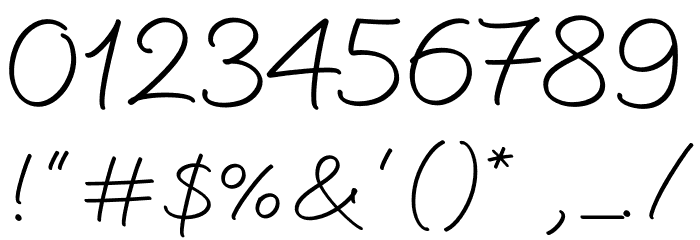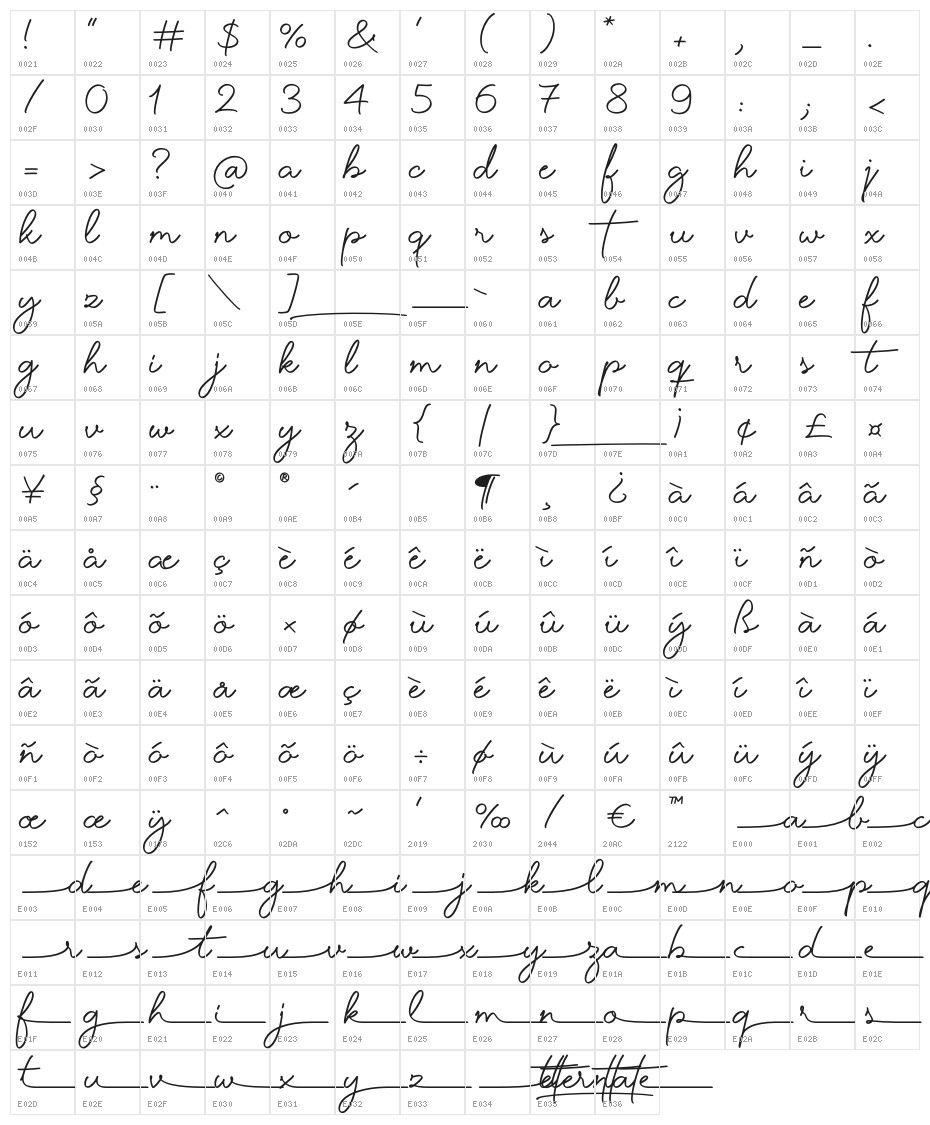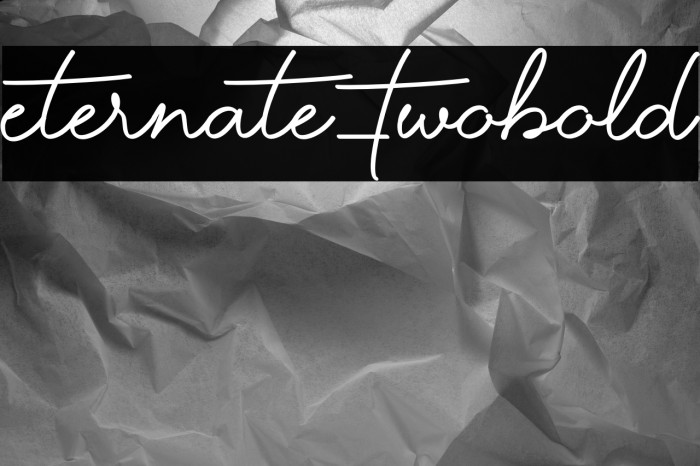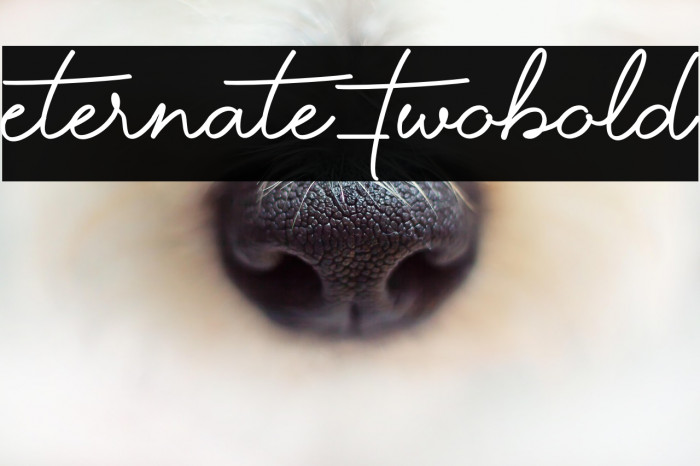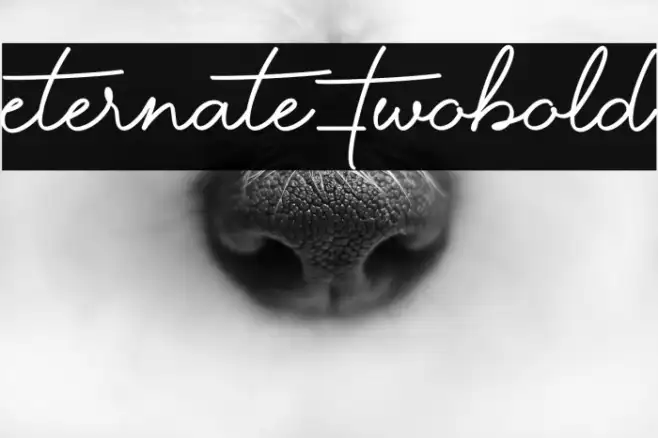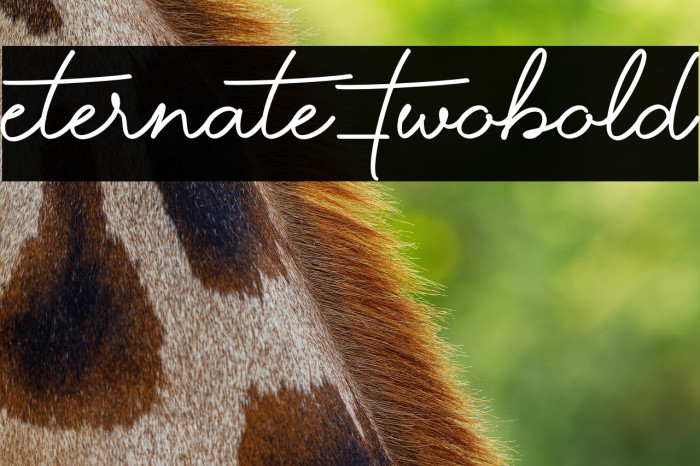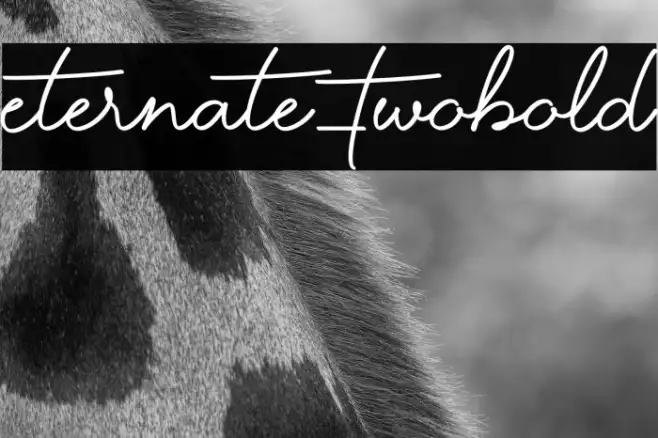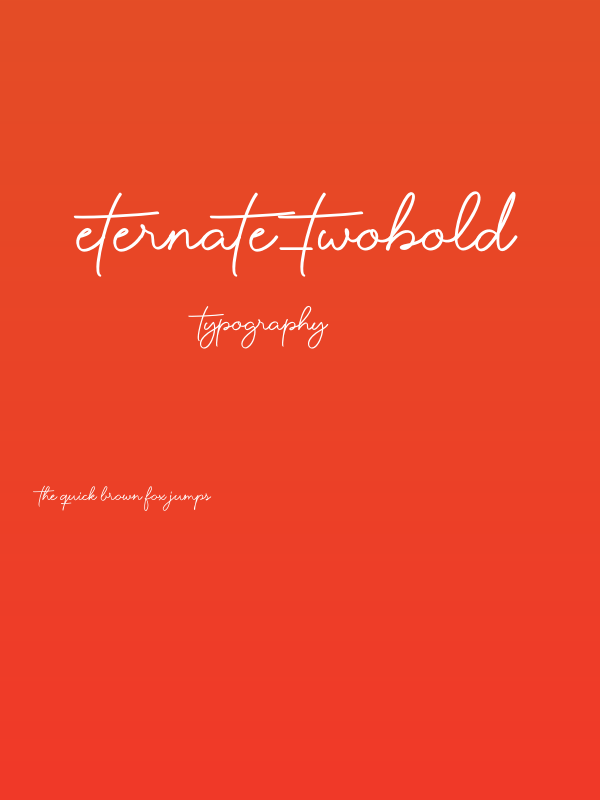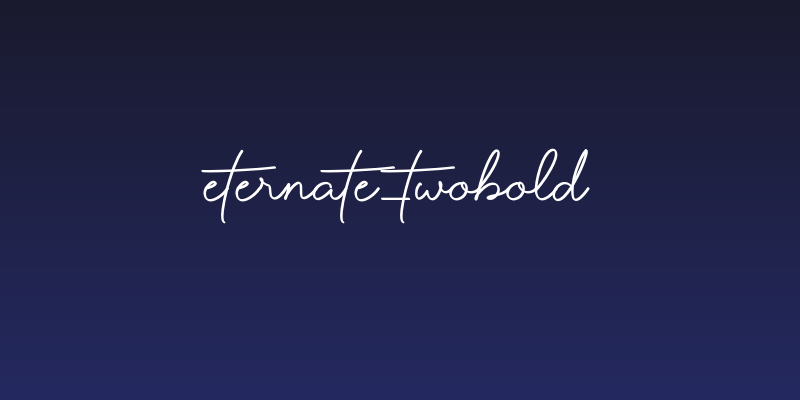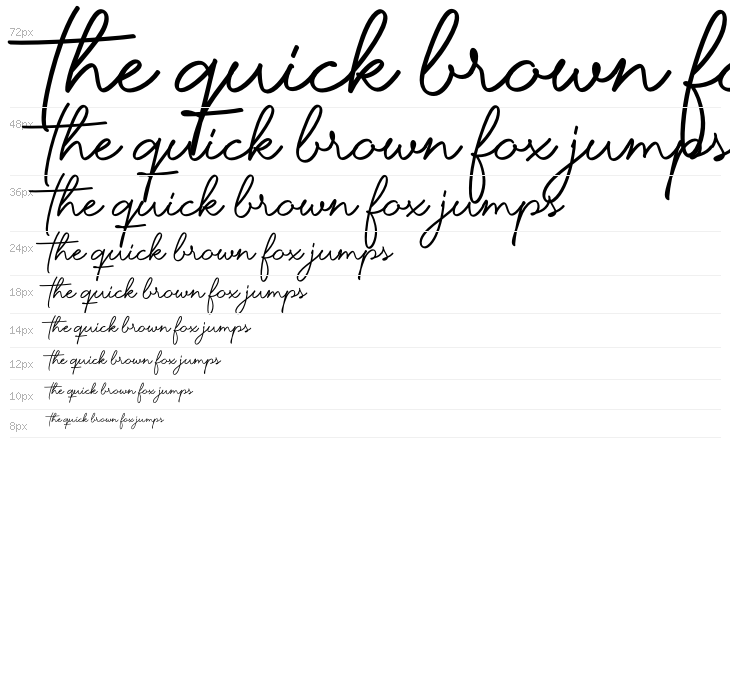
Eternate-TwoBold Font
Eternate-TwoBold Description
This font features a fluid, cursive style with a handwritten appearance. The letters are interconnected, creating a seamless flow that mimics natural handwriting. The strokes are smooth and consistent, with a slight slant to the right, enhancing its elegant and personal touch. The numerals and special characters maintain the same fluidity, ensuring a cohesive look across all characters. This font is ideal for adding a personal, artistic flair to any project, making it suitable for creative and expressive designs.
Use CaseLogos, Invitations, Artistic projects
Proposed ProjectsIdeal for wedding invitations, personal branding, greeting cards, and artistic projects.